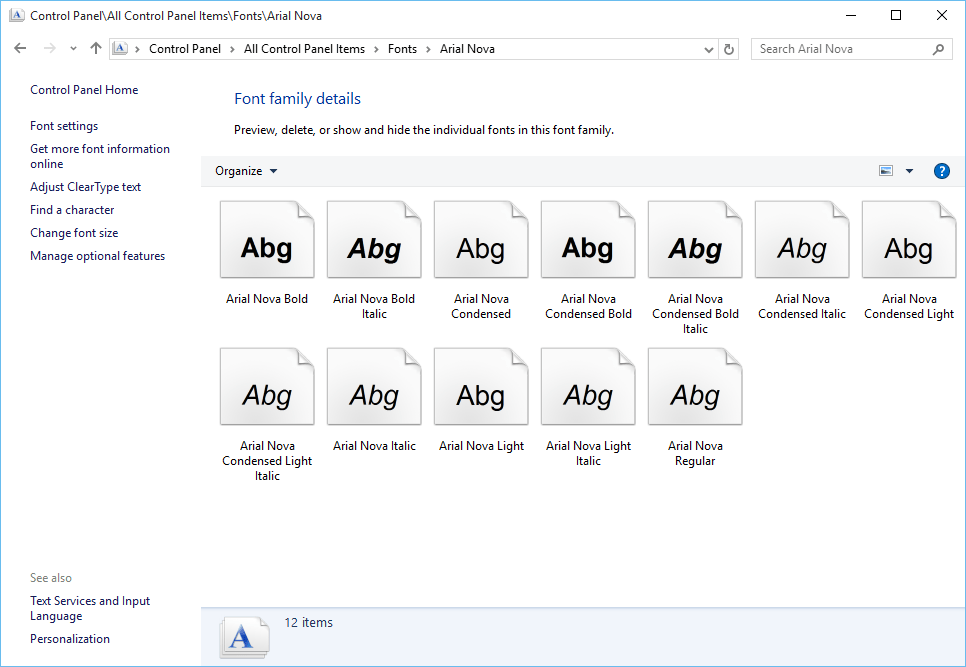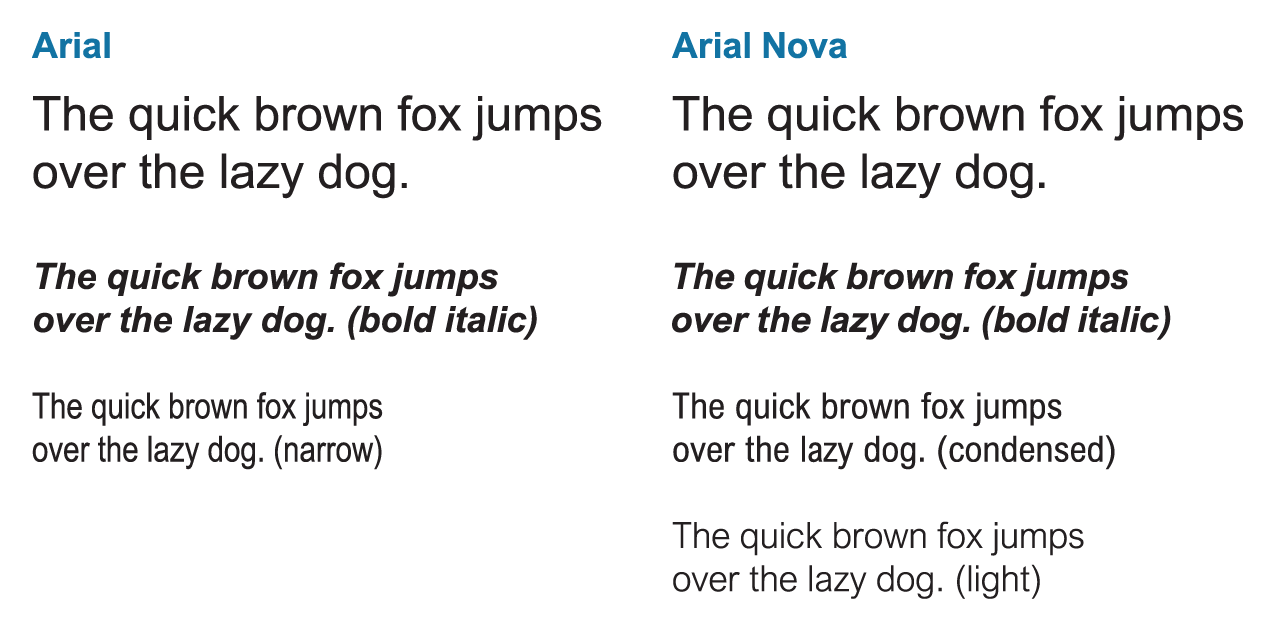
Arial Nova Font. Font ini cocok untuk paragraf dan judul dokumen. It is suitable for document paragraphs and headings.
Arial nova is a subtle redesign of the classic arial family. Arial nova arial nova italic arial nova light italic arial nova bold. You may only (i) embed this font in content as permitted by the embedding restrictions included.
Arial Nova Adalah Desain Ulang Yang Halus Dari Keluarga Arial Klasik.
The following styles are included: Arial nova is a popular type font that can be used on any device such as pc, mac, linux, ios and android. These fonts are designed for european languages written with latin, greek and cyrillic scripts.
Arial Nova Bold Is A Popular Type Font That Can Be Used On Any Device Such As Pc, Mac, Linux, Ios And Android.